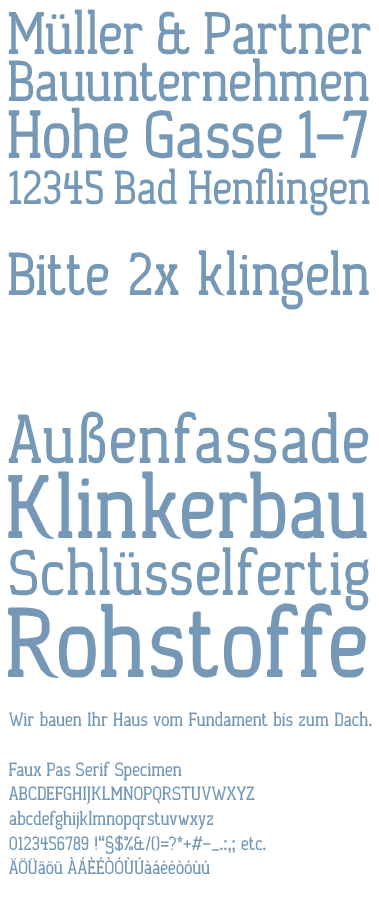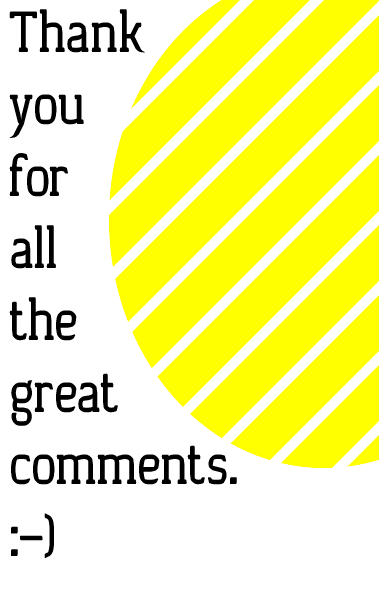
Faux Pas Serif
My first faux curves font in years. Semiragged, modern serif, supposed to be good for large and small text.
This one may look better at small sizes, but I think it's that big sizes that give this one a certain unique feel.
The beauty is in the subtlety.
Very smooth and friendly. The tapering in the JKQjky gives this quite a different character!
Very professional look, would be great for FontOut 2!
o without a stroke